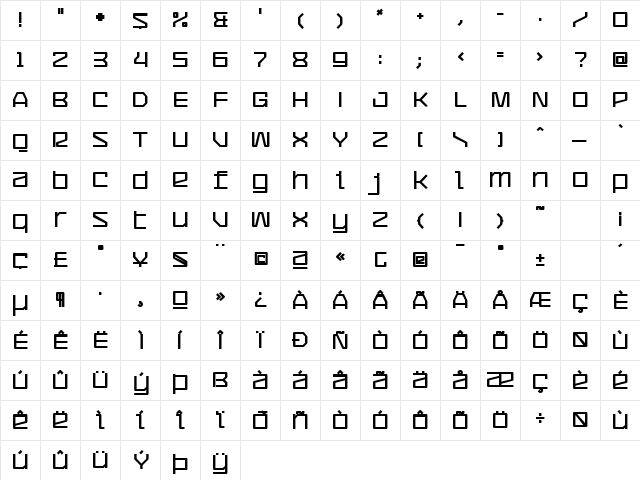
CommunityService UltraBold
| Foundry | YouWorkForThem |
| Designer | Michael Cina |
Design Context for CommunityService Typeface
CommunityService is a composed and adaptable typeface that performs quietly and consistently across a wide range of design contexts. The heavy weight commands attention and anchors typographic hierarchies.